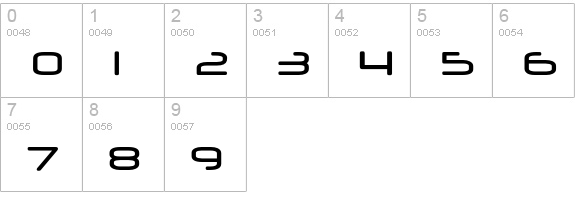
Neuropol-Medium is a balanced, medium-weight variant in the Neuropol typeface family \xE2\x80\x94 well suited to sub-headlines, navigation, and balanced editorial work.
Neuropol-Medium is a sleek and modern font that exudes a sense of sophistication and innovation. With its clean lines and futuristic appearance, this font is perfect for projects that require a contemporary and cutting-edge aesthetic. The Medium weight strikes the perfect balance between boldness and readability, making it versatile for a wide range of design applications. What sets Neuropol-Medium apart is that it is not only stylish and functional, but it is also available for free download at FontsMarket.com. This means that you can easily access this high-quality font without any cost, making it a valuable resource for designers, creatives, and anyone looking to elevate their projects with a touch of modernity. Download Neuropol-Medium today and discover the endless possibilities it offers for your next design endeavor.